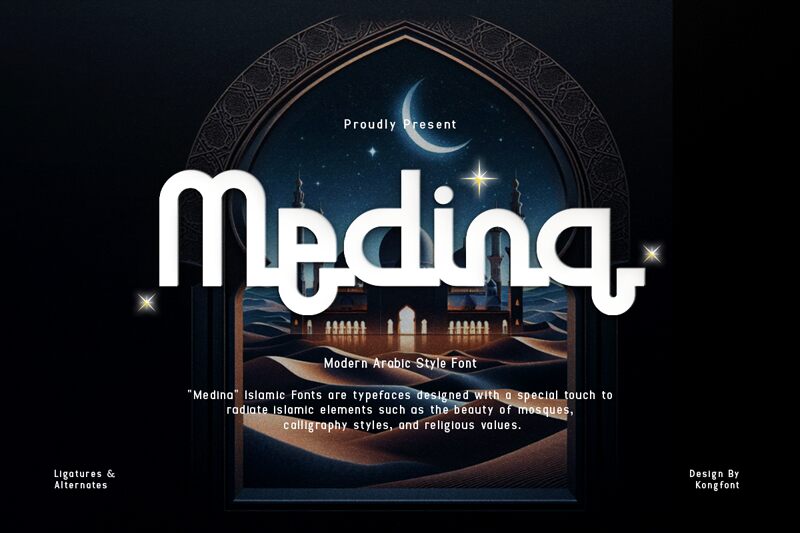
Medina font is a free font created by Kong Font with a modern style in its execution. It reinterprets cultural inspirations through the lens of contemporary and international design. Rather than aiming for the complex and florid, the designer aimed for simplification and style. The straightforward aspect of this font does not take away from its beauty, and neither does it take away from its global nature, which is an added benefit when comparing it with other free fonts of the same inspiration.
Medina is suitable for designing book covers, advertising posters, typography logos, artistic projects, magazine layout, and catalogs. It would also look amazing on exhibitions and gallery names, science movie posters, card games, home décor, and even in some architectural designs.